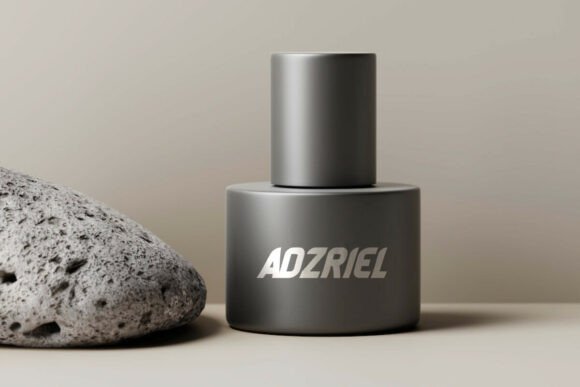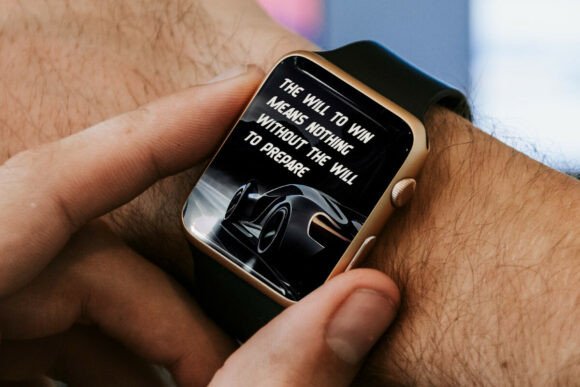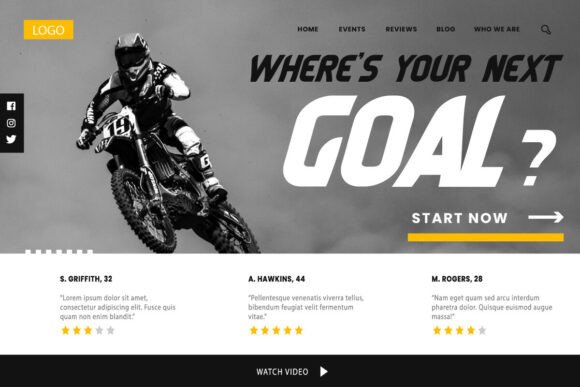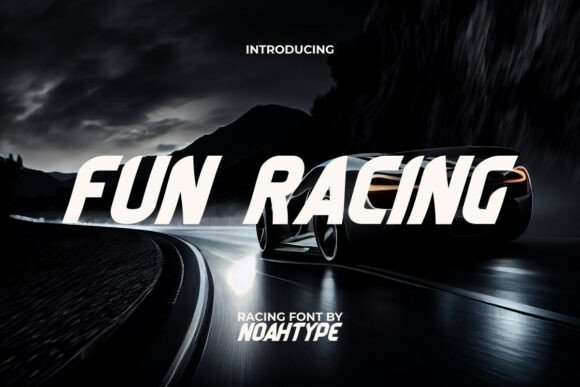
Introduction to Fun Racing Font
Fun Racing is a streamlined, dynamically slanted racing display font that captures the high-speed intensity and cutting-edge aesthetic of modern motorsport and high-performance vehicles.
This powerful typeface is characterized by its dramatic italic posture and aerodynamic, wide letterforms, conveying rapid acceleration and forward momentum While engineered for speed, the Fun Racing font maintains clarity and impact, making it ideal for large-format applications like vehicle wraps, event banners, and video game titles.
Key Features of Fun Racing Font
Why Choose Fun Racing Font?